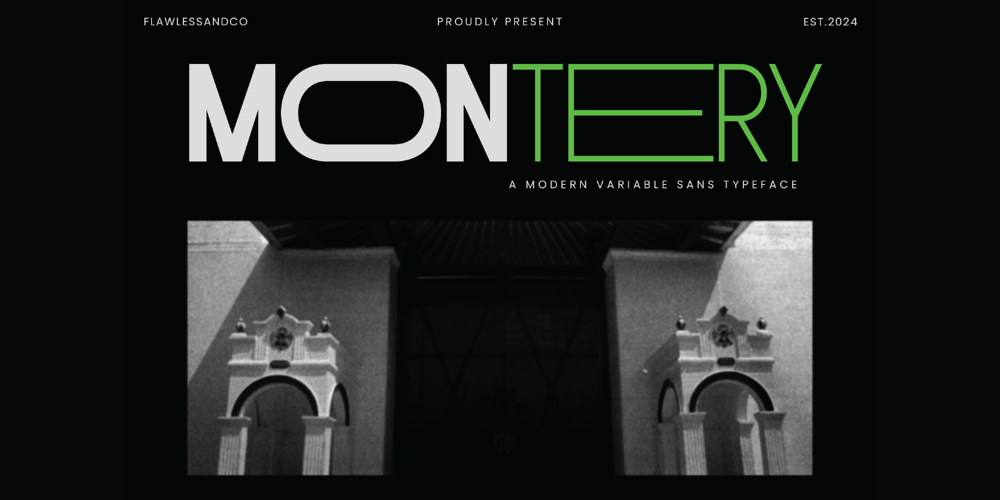
Montery Font Family was designed by Achmad Yani and published by Flawlessandco. Montery contains 9 styles and family package options. Introducing “Montery,” a sleek and versatile sans serif font family designed to meet the needs of modern design. With its clean lines, dynamic shapes, and variable weights, Montery is perfect for creating professional and contemporary designs that require flexibility and style. Including Thin, Extra Light, Light, Regular, Medium, Semi Bold, Bold, Extra Bold and Black.There’s some connected letters and some alternates that suitable for any graphic designs such as branding materials, t-shirt, print, business cards, logo, poster, t-shirt, photography, quotes .etcThis font support for some multilingual. Also contains uppercase A-Z and lowercase a-z, alternate character, numbers 0-9, and some punctuation.If you need help, just write me! Thanks so much for checking out my shop!